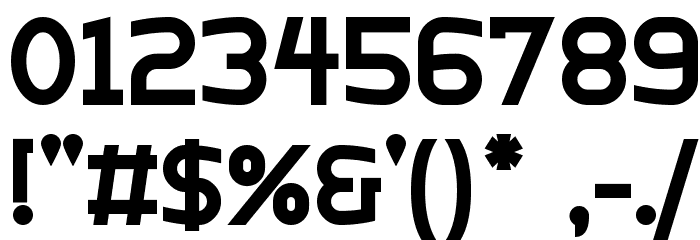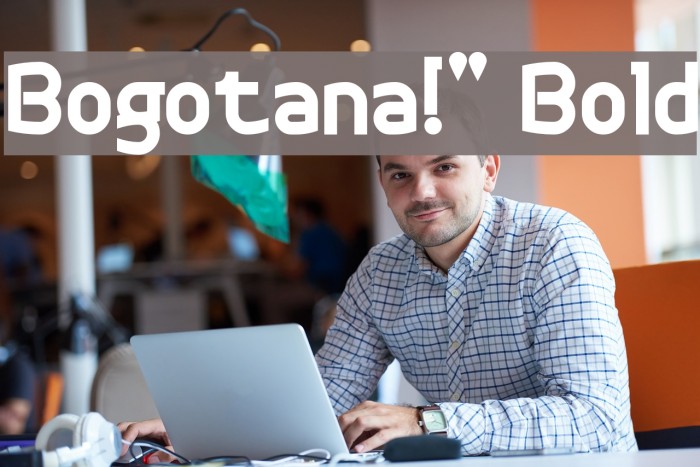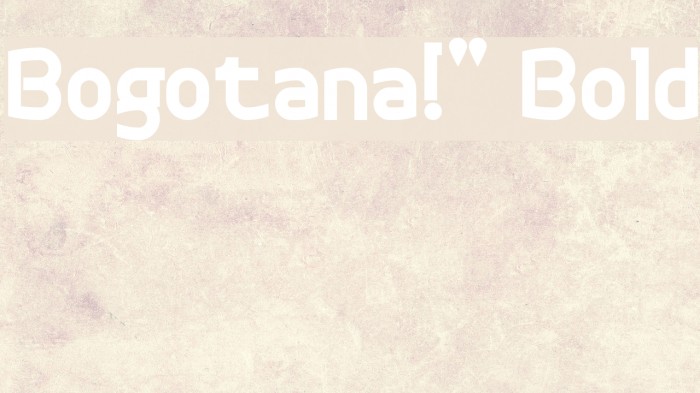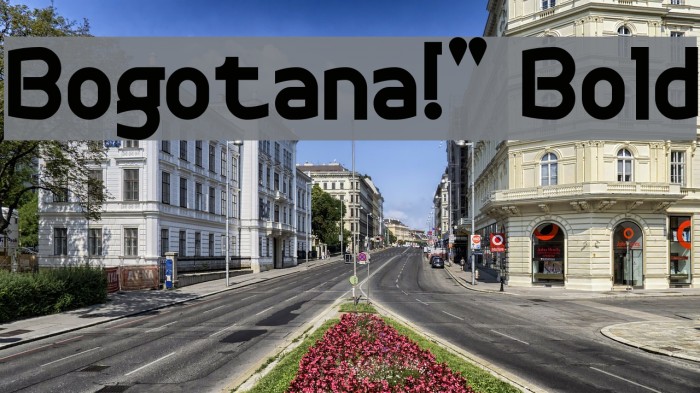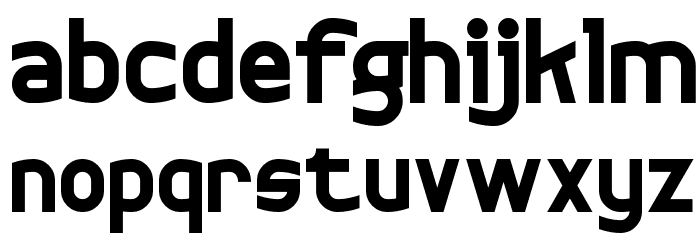
Bogotana!` Bold Font
This font exhibits a bold and modern design with a strong geometric influence. The characters are well-defined with a consistent stroke width, providing a clean and robust appearance. The uppercase letters are slightly condensed, giving a compact and efficient look, while the lowercase letters maintain a uniform height that complements the overall structure. The numerals are clear and legible, designed to match the boldness of the alphabetic characters. Special characters are crafted with the same attention to detail, ensuring they integrate seamlessly with the rest of the font. This font's boldness and clarity make it suitable for impactful designs.
A bold, modern font with geometric influences and consistent stroke width.
• Proposed Projects: Ideal for branding, headlines, posters, and any design requiring a strong visual impact.
• Category: Sans-Serif
• Bold: Yes
• Italic: No
• Weight: Bold
• Width: Condensed
• Character Spacing: Normal
• Contrast: Low
• Overall Style: Modern
• Use Case: Headlines, Logos, Posters